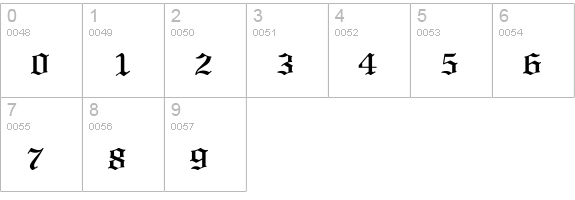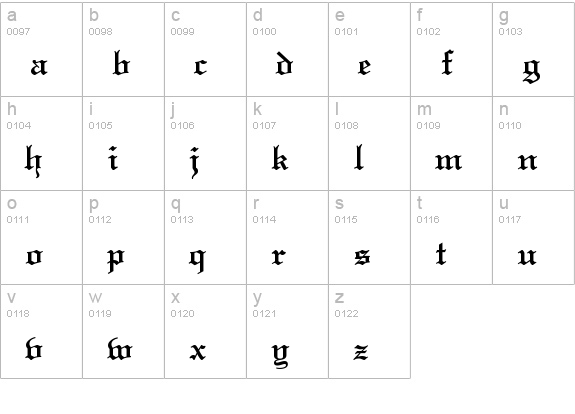
Certificate Bold Font Details
Certificate Bold is a strong, high-contrast variant in the Certificate typeface family \xE2\x80\x94 well suited to headlines, attention-grabbing titles, and strong calls-to-action.
Certificate Bold is an elegant and sophisticated font designed for creating professional and stylish documents. With its bold and distinct letterforms, this font is perfect for certificates, awards, invitations, and other formal designs. The bold strokes and fine details of Certificate Bold make it stand out on the page, adding a touch of elegance to any project. The best part is that Certificate Bold is completely free to download at FontsMarket.com. Whether you're a designer looking for a new font to add to your collection or simply need a high-quality font for your next project, Certificate Bold is the perfect choice. Download it today and elevate your designs with this timeless and versatile font.